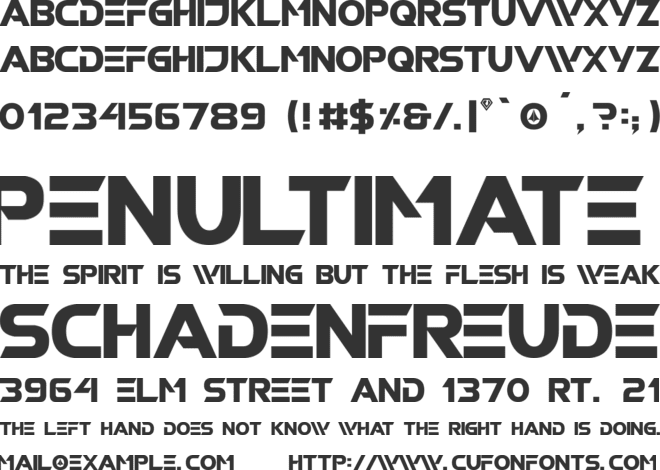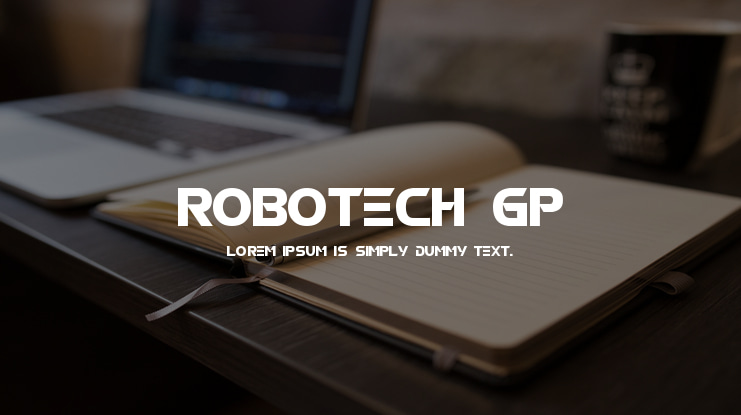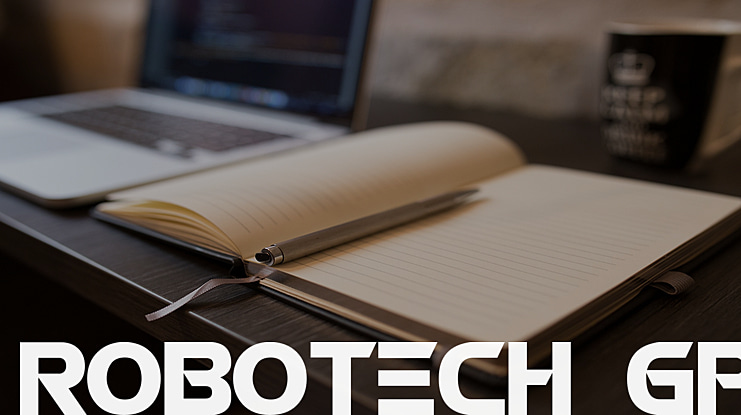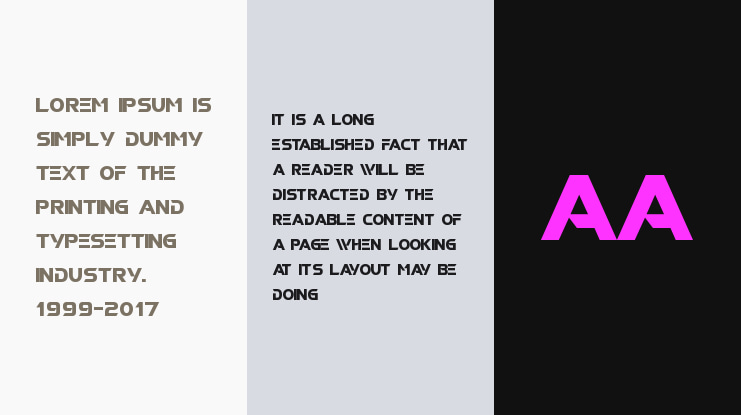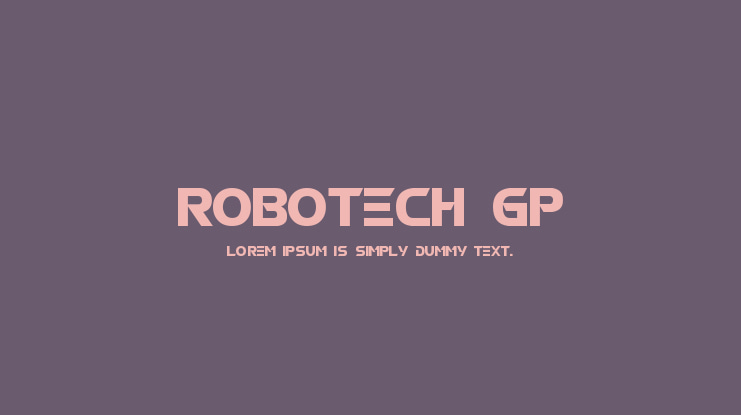
ROBOTECH GP Font
Gustavo Paz L.
Based on japanese anime series ROBOTECH There are others ROBOTECH based fonts, but no one of them satisfied me totally, so I do my own version.